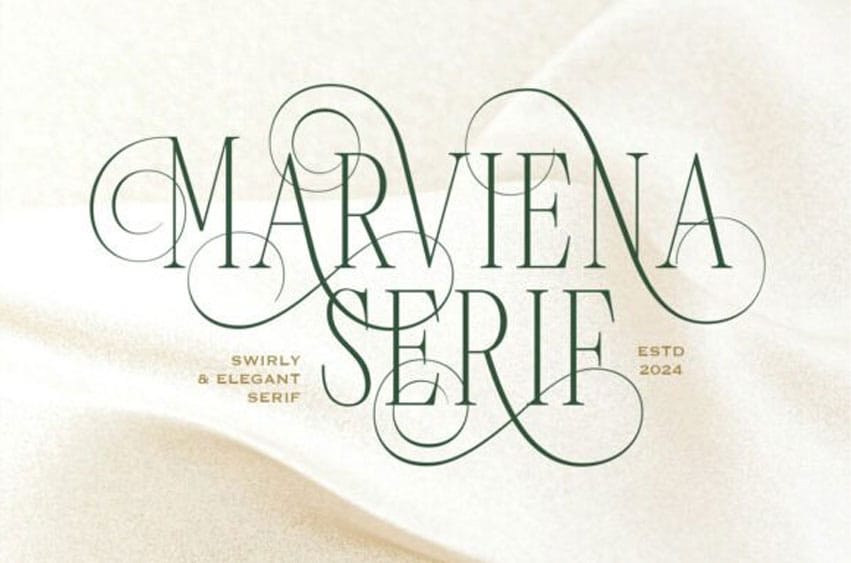
Marviena Font is a tall, all-caps serif typeface featuring a variety of swirly alternates. It is perfect for designs that require an elegant and luxurious appearance. The different heights and shapes of the uppercase and lowercase letters will enhance the visual appeal of your designs.